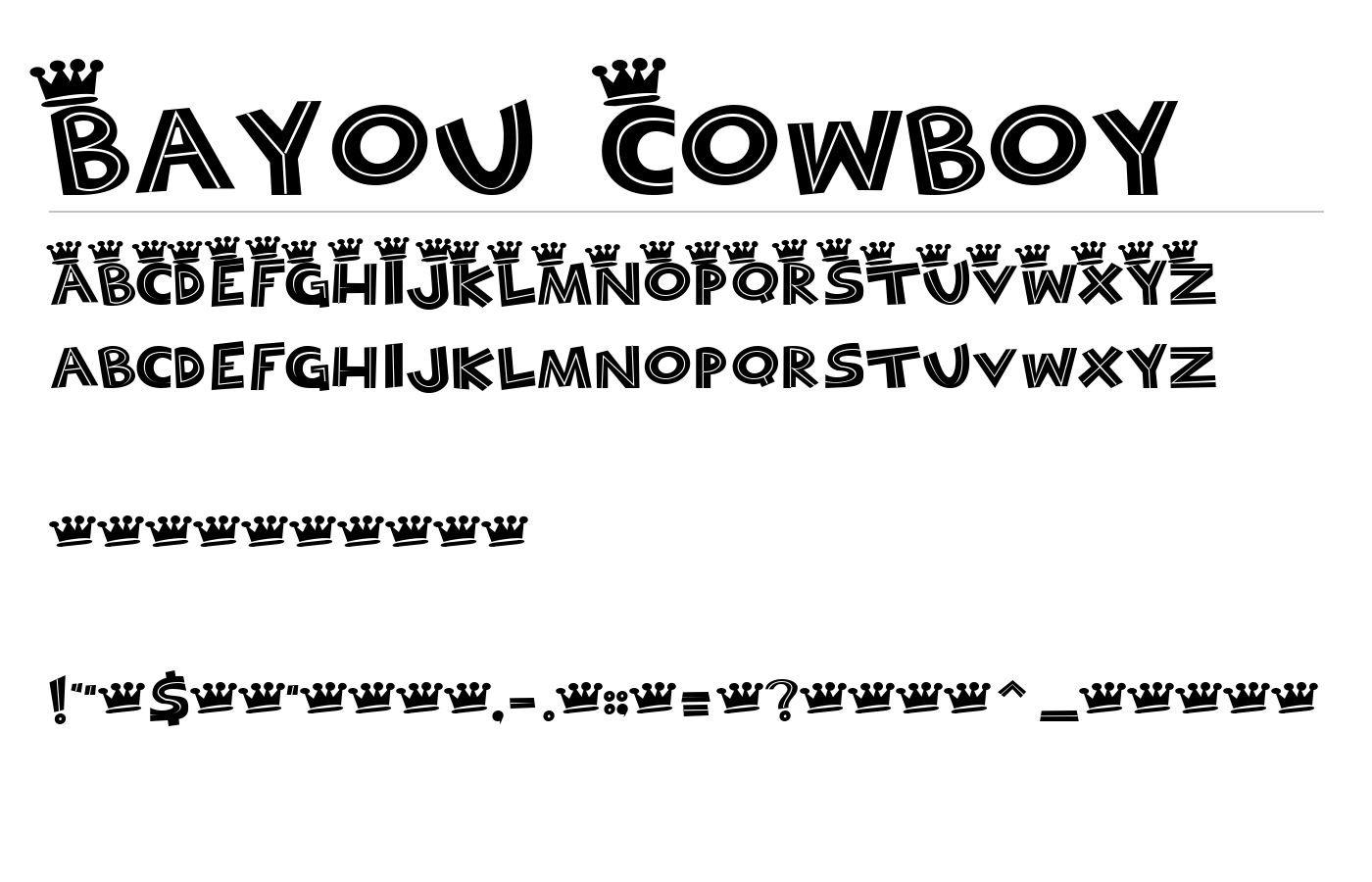
Bayou Cowboy is a bold, playful display font with lively, chunky letterforms that carry a whimsical Western charm. Its uneven strokes, vibrant geometric shapes, and decorative crown motifs create a fun, casual personality perfect for eye-catching headlines, posters, and branding that want to convey a lighthearted, adventurous spirit. This font stands out best in creative design contexts where a quirky, energetic vibe is desired.
Bayou Cowboy Font
About Bayou Cowboy Font